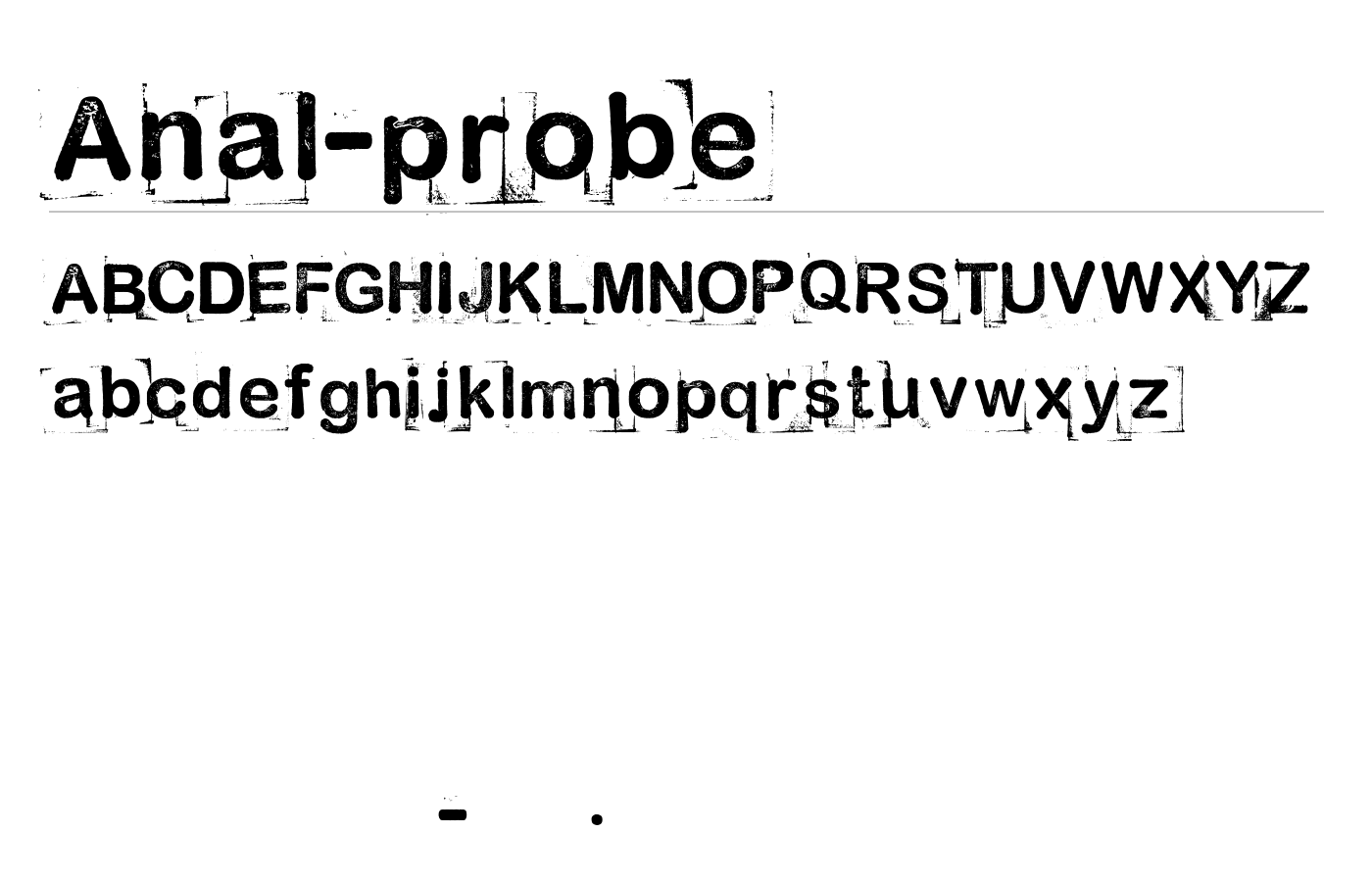
Anal-probe is a bold, distressed sans serif font with a rough, uneven texture that gives it a strong, industrial feel. Its irregular edges and slightly condensed letterforms create a gritty, worn look, making it ideal for edgy, urban designs and projects that require a raw, authentic vibe. This font works well in headline and display uses for posters, branding, and creative packaging where a bold statement is needed.
Anal-probe Font
About Anal-probe Font
| Font family | Anal-probe Font |
| Designer | Mike Larsson |